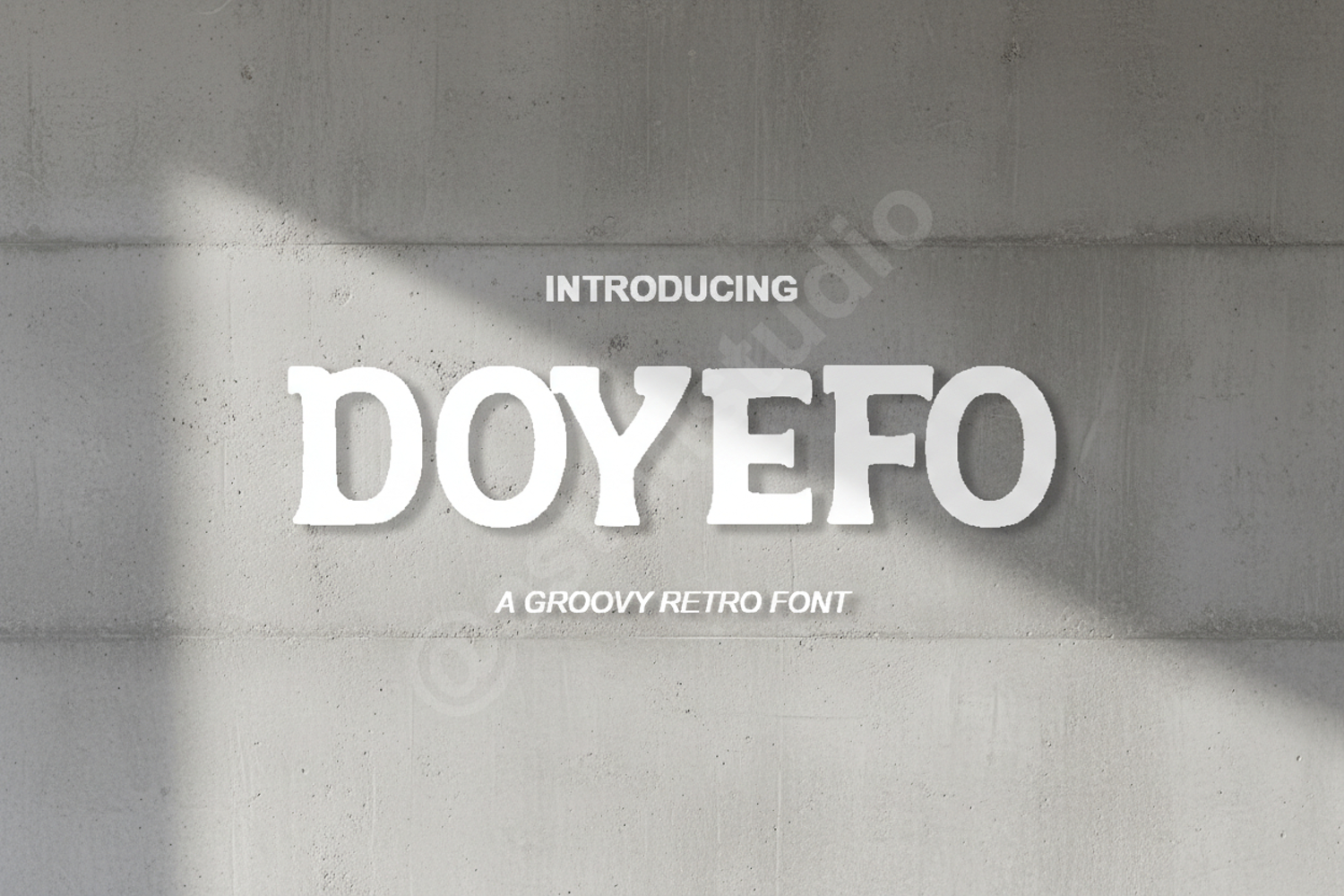
Doyefo - Modern Luxury Serif Font
Doyefo
Elevate your design projects with Doyefo, a premium serif font that embodies modern elegance and timeless sophistication. Crafted with meticulous attention to detail, Doyefo balances classic proportions with contemporary flair, making it an essential addition to any designer's toolkit. Whether you are working on a high-fashion magazine or a minimalist brand identity, this font delivers a polished and professional aesthetic that commands attention.
- Standard Ligatures and Alternates
- Luxury Branding and Identity: Perfect for high-end logos that require a touch of class.
- Editorial Design: Ideal for headlines, pull quotes, and sophisticated body text.
- Wedding Stationery: Create stunning invitations, menus, and save-the-date cards.
- Social Media Graphics: Enhance your digital presence with clean and professional typography.
- Product Packaging: Add a premium feel to labels, boxes, and promotional materials.